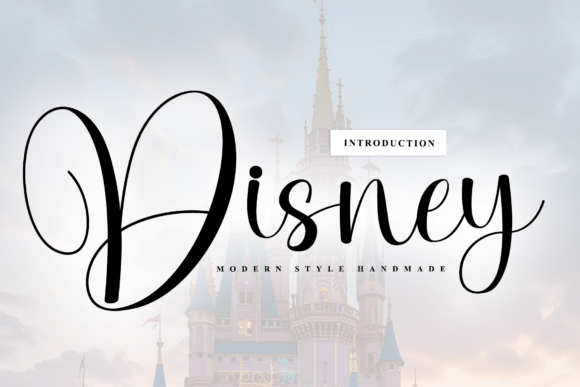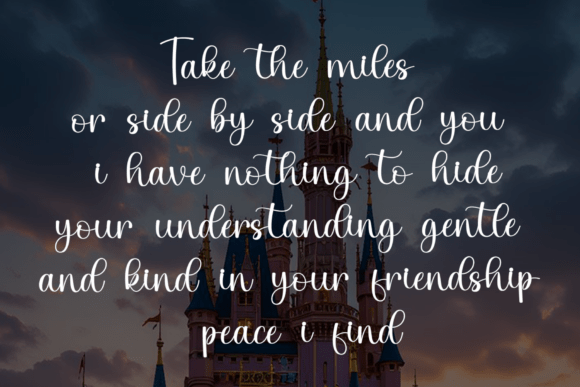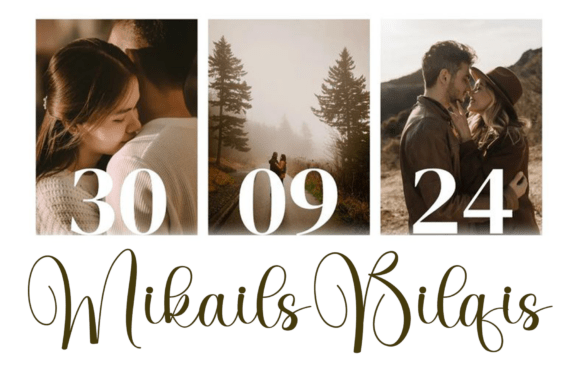
The Magic of Disney Font: Bringing Whimsy to Your Designs
Have you ever stared at a beautiful hand-drawn logo and wondered what made it so special? Perhaps it was the playful curves, the whimsical flourishes, or the way the letters seemed to dance across the page. Whatever it was, you can’t deny the magic that happens when a design comes alive with a personal touch. For designers, this magic is often found in the Disney Font – a lovely and timeless handwritten font that’s perfect for creating eye-catching logos, branding, and quotes.
The Disney Font is more than just a pretty face – it’s a valuable tool for designers who want to add a touch of personality to their work. With every letter uniquely crafted to evoke a sense of wonder and enchantment, this font is sure to make your design stand out from the crowd. Whether you’re working on a project for a client or just want to add a little Disney magic to your own creations, the Disney Font is an essential addition to any designer’s toolkit.
Disney Font Key Features
- Unique Characteristics: The Disney Font is a custom-designed font that combines elegance and playfulness, featuring distinctive letterforms and ornaments that evoke the magic of Disney.
- Script and Serif Variations: The font family includes both script and serif variations, allowing users to choose the perfect style to suit their needs.
Disney Font Review
As a designer, I was excited to dive into the Disney Font. Overall, I’d say it’s a fun and whimsical choice, perfect for projects that need a touch of magic ✨. Here are some of its strengths:
- Unique and recognizable: The Disney Font is instantly recognizable, making it perfect for projects that need to evoke a sense of nostalgia or familiarity.
- Fun and playful: The font is perfect for projects that need a lighthearted or humorous tone, and its whimsical feel can add a touch of personality to any design.
- Good for display use: The Disney Font is at its best when used for headings or titles, where its bold and eye-catching feel can really shine.
However, there are some limitations to keep in mind ⚠️:
- Not ideal for body text: The font can be a bit too ornate for large blocks of text, making it difficult to read at smaller font sizes.
- Limited versatility: While the font is great for certain types of projects, it may not be the best choice for more formal or professional designs.
- Not suitable for small sizes: The font’s intricate details can get lost at very small font sizes, making it less effective in certain contexts.
Overall, I’d say the Disney Font is a fun and unique choice that’s perfect for the right projects. While it may have some limitations, its strengths make it a great addition to any designer’s toolkit.
Use the Disney font for creating whimsical and playful designs, such as children’s party invitations, birthday cards, and nursery decorations.
Combine the Disney font with other fonts and graphics to create a cohesive and eye-catching design.
The Disney font is commonly used for:
- Birthday cards and gift tags.
- Nursery decorations and baby shower invitations.
- Whimsical and playful branding and marketing materials.